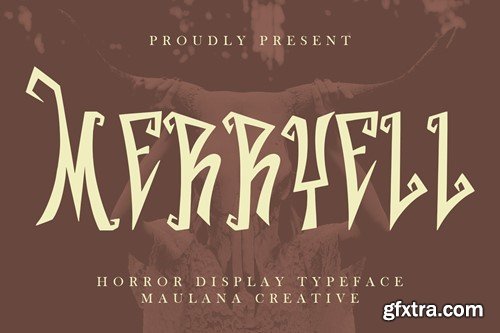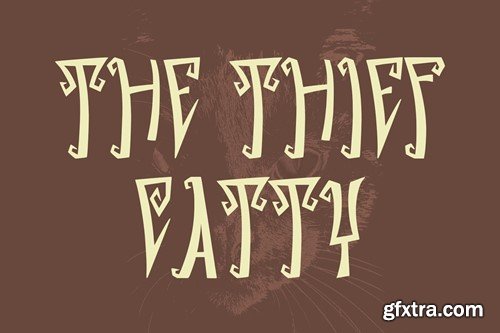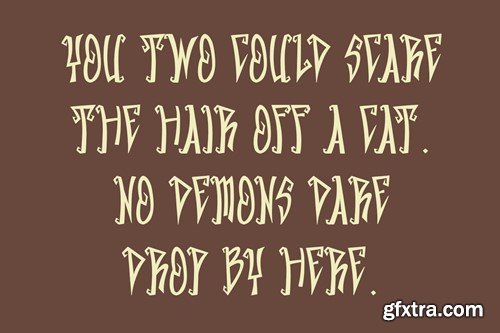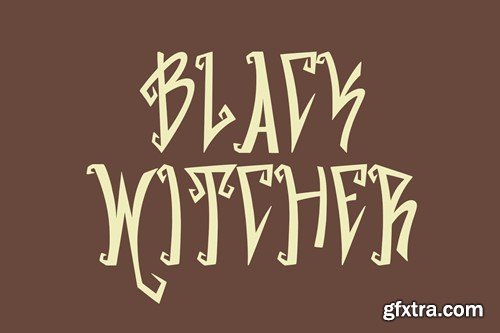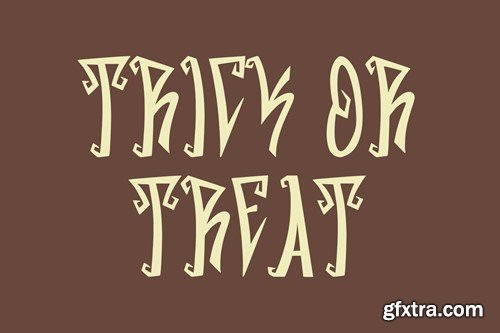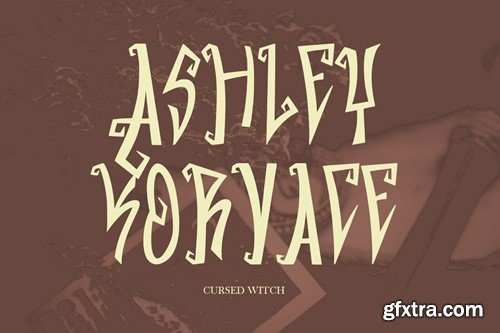
Merryell Horror Display Typeface
Merryell horror display typeface. With light contrast stroke, fun character with a bit of ligatures and alternates. To give you an extra creative work. Merryell horror display typeface support multilingual more than 100+ language. This font is good for logo design, Social media, Movie Titles, Books Titles, a short text even a long text letter and good for your secondary text font with sans or serif. Make a stunning work with Merryell horror display typeface. What you get: – Merryell (TTF) – Merryell (OTF) – Merryell (WOFF) Cheers, Maulana Creative